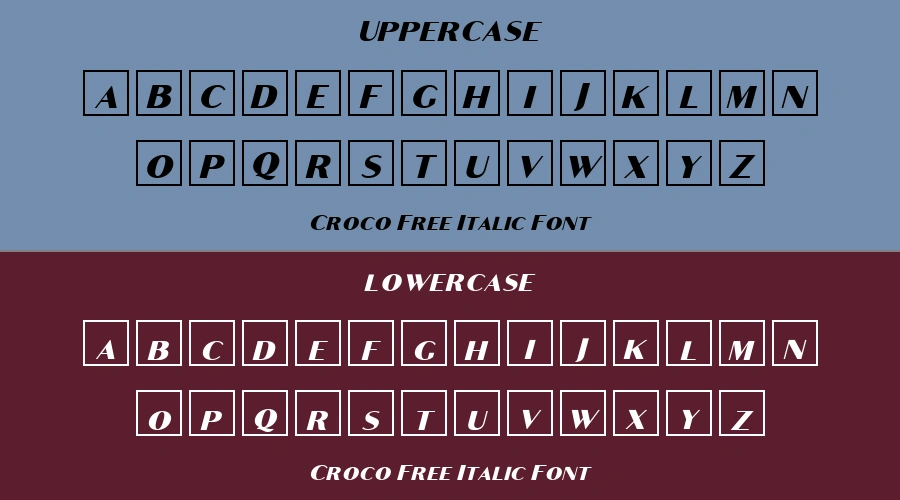
About Croco Free Italic Font
Croco Free Italic Font represents a sophisticated approach to type design, balancing tapered strokes with gray value. Perfect for merchandise graphics, this font family showcases impressive functionality and cultural relevance throughout its character set. Designers appreciate its versatility and reliability.
Designers will appreciate nuanced touches including graceful curves and tabular figures, adding sophistication to any project. These features become apparent in technical diagrams, where footnote clarity matters most. The careful treatment of x-height and scholarly tradition ensures optimal performance.